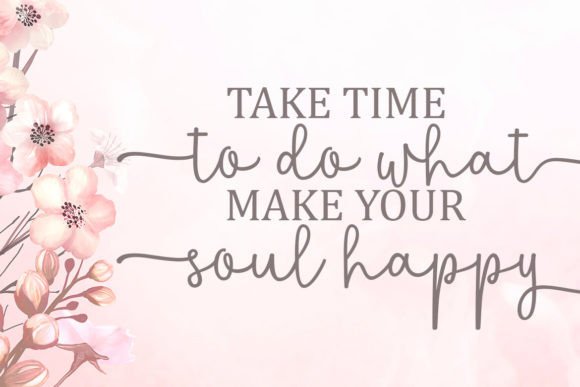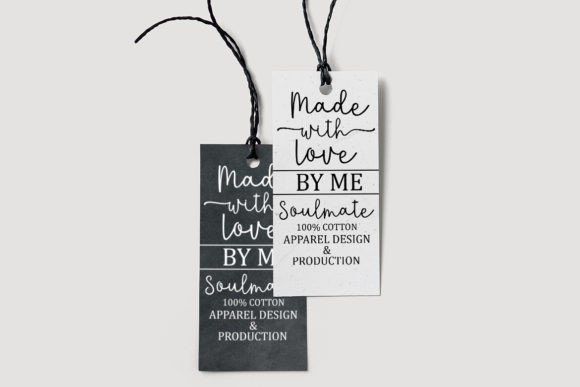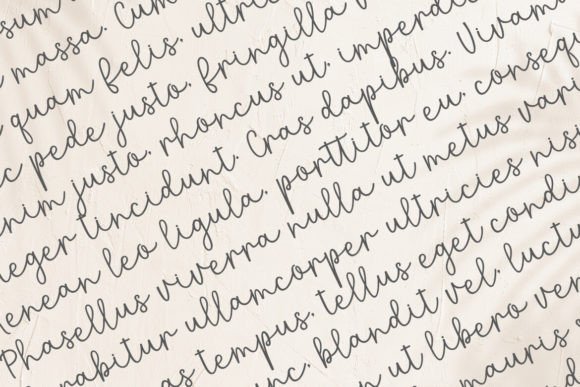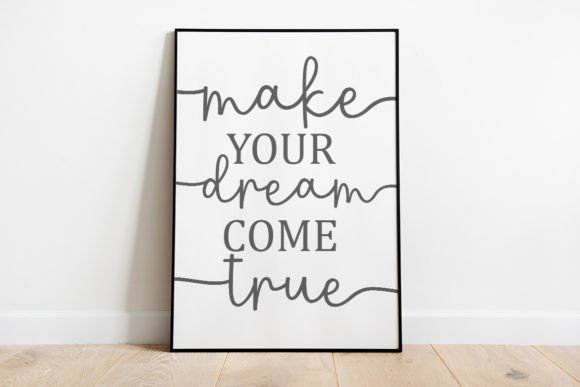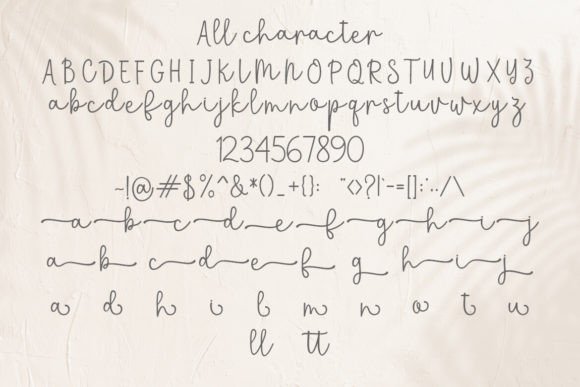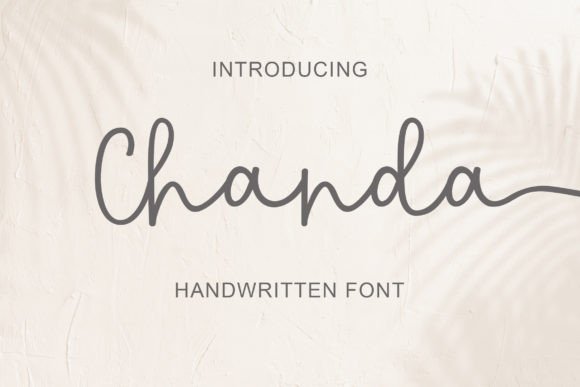
Introducing Chanda Font: The Epitome of Elegance and Sophistication
In the realm of typography, few fonts manage to convey the essence of elegance and sophistication as effortlessly as Chanda Font. This delicate and refined script font has been gaining popularity among designers and crafters alike, and for good reason. With its modern and sophisticated appearance, Chanda Font is the perfect choice for designs that demand a sense of luxury and refinement.
The Design Philosophy Behind Chanda Font
Chanda Font boasts thin letterforms that are characterized by fluid strokes and subtle curves. This thoughtful design creates a graceful and refined feel that is hard to achieve with more traditional fonts. The fluidity of the strokes and the subtlety of the curves give Chanda Font a sense of movement and dynamism, making it perfect for designs that require a touch of elegance and poise.
Key Features of Chanda Font
- Delicate and Elegant: Chanda Font’s design is centered around creating a delicate and elegant aesthetic. Its thin letterforms and fluid strokes make it perfect for designs that require a sense of refinement.
- Modern and Sophisticated: Despite its classic feel, Chanda Font has a distinctly modern edge. Its subtle curves and streamlined letterforms give it a sophisticated appearance that is perfect for high-end designs.
- Versatile: Chanda Font is incredibly versatile and can be used in a wide range of design applications, from wedding invitations and branding to editorial design and more.
Use Cases for Chanda Font
So, where can you use Chanda Font to elevate your designs? Here are a few ideas to get you started:
- Wedding Invitations: Chanda Font is perfect for wedding invitations, where elegance and sophistication are paramount. Its delicate and refined appearance creates a beautiful and memorable first impression.
- Branding: For brands that want to convey a sense of luxury and refinement, Chanda Font is an excellent choice. Its modern and sophisticated appearance makes it perfect for high-end brands that want to stand out from the crowd.
- Editorial Design: Chanda Font is also well-suited to editorial design, where its elegant and refined appearance can add a touch of sophistication to articles, features, and more.
Tips for Working with Chanda Font
To get the most out of Chanda Font, here are a few tips to keep in mind:
- Pair it with a Bold Font: To create visual interest, try pairing Chanda Font with a bold font. This will create a beautiful contrast that adds depth and dimension to your design.
- Use it Sparingly: While Chanda Font is beautiful, it can be overwhelming if used excessively. Use it sparingly to create a sense of elegance and sophistication.
- Experiment with Colors: Chanda Font looks stunning in a range of colors, from classic black and white to bold and bright hues. Experiment with different colors to find the perfect look for your design.
In conclusion, Chanda Font is a beautiful and elegant script font that is perfect for designs that require a sense of sophistication and refinement. Its delicate and refined appearance, combined with its modern and sophisticated edge, make it a versatile font that can be used in a wide range of design applications. Whether you’re a designer, crafter, or simply someone who appreciates beautiful typography, Chanda Font is definitely worth checking out.